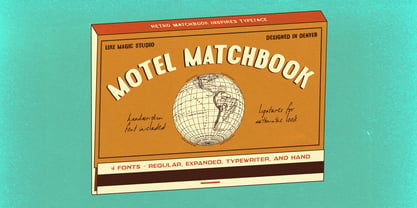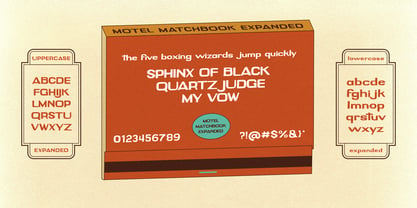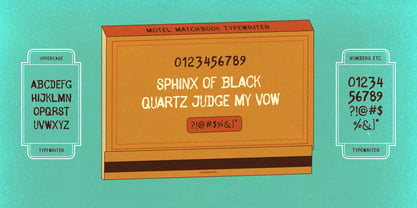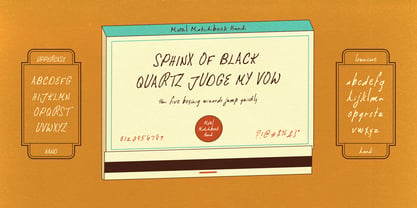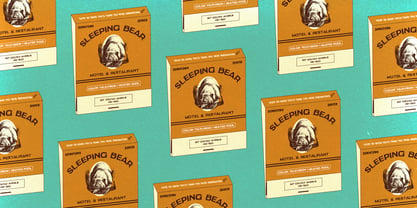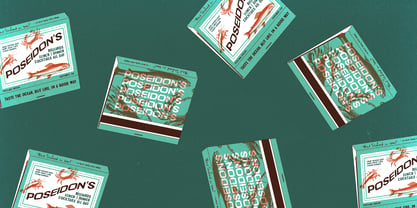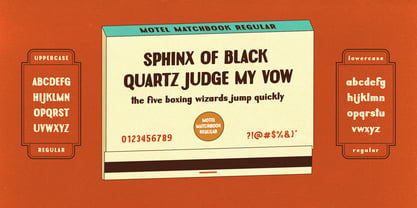
Motel Matchbook
The Motel Matchbook Font Family was designed by Brette Guilmette and published by Like Magic Studio. Motel Matchbook contains 4 styles and family package options. More about this family
Inspired by vintage matchbooks you would get from a motel.
Motel Matchbook is a family of 4 styles that can be used separately or together to create retro style designs for packaging, flyers, branding, and anything else you can think of.
The handwritten style has ligatures to ensure an authentic handwritten feel.